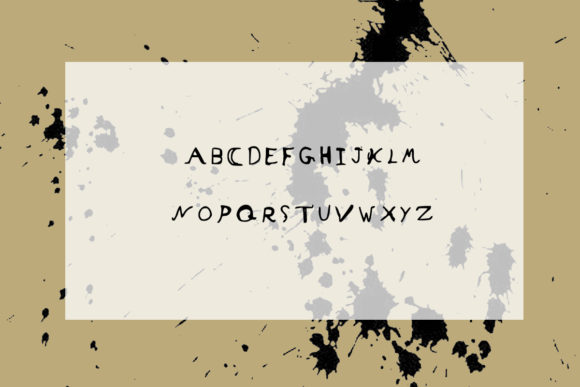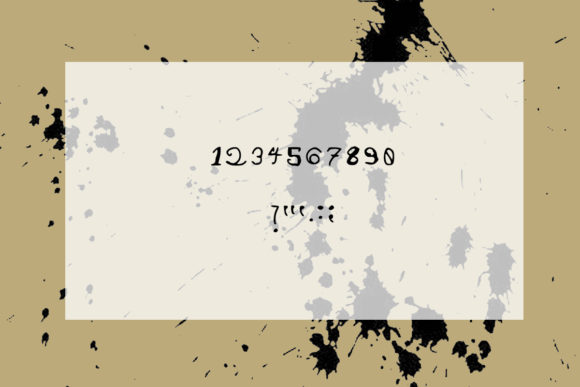
Inky Blots Font
About Inky Blots Font
Inky Blots is an incredibly quirky handwritten font. Add this font to your favorite creative ideas and notice how it makes them come alive!